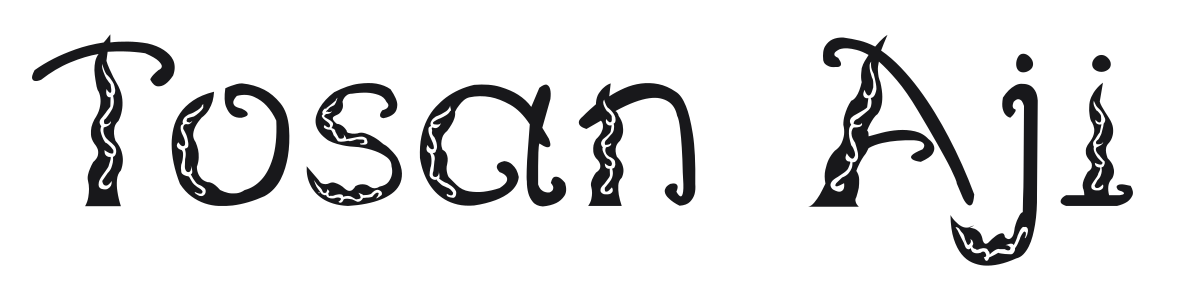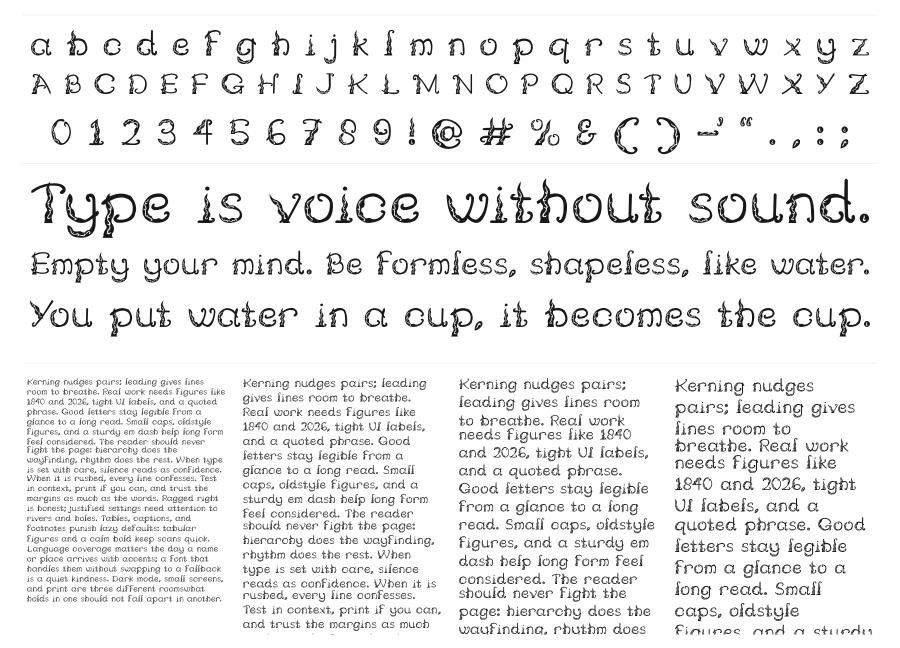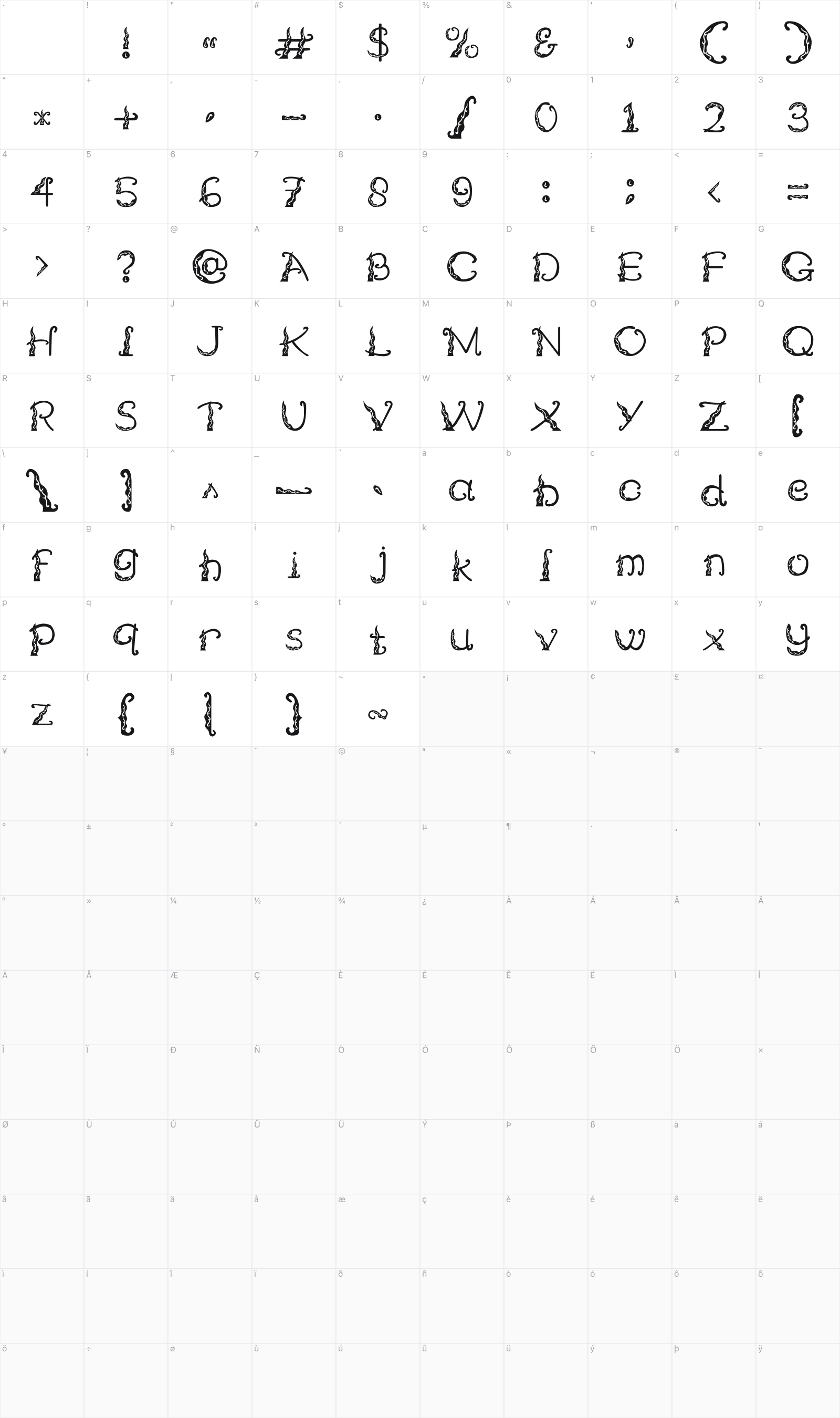
Tosan Aji
by Stephanie Yapeter
Tosan Aji is a distressed display font where every character looks like it's being overtaken by flames, thorns, or twisting vines. The organic protrusions burst unpredictably from each stroke, making it feel genuinely untamed rather than stylized chaos. Strong for posters, band logos, horror titles, or anywhere a rough, primal energy is the point.